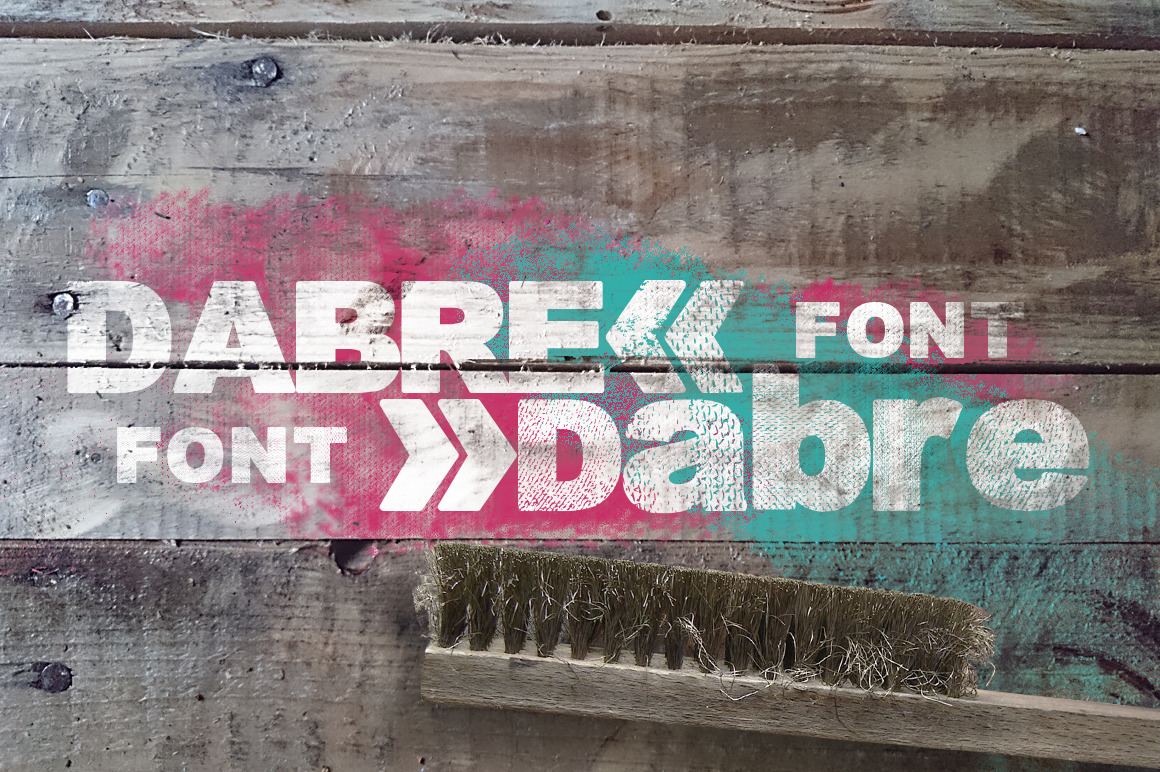
Dabre Font
Dabre Font With this font you get Regular and grunge/stamped style typeface. This fonts does not contain any swashes or alternates which means it automatically works everywhere.